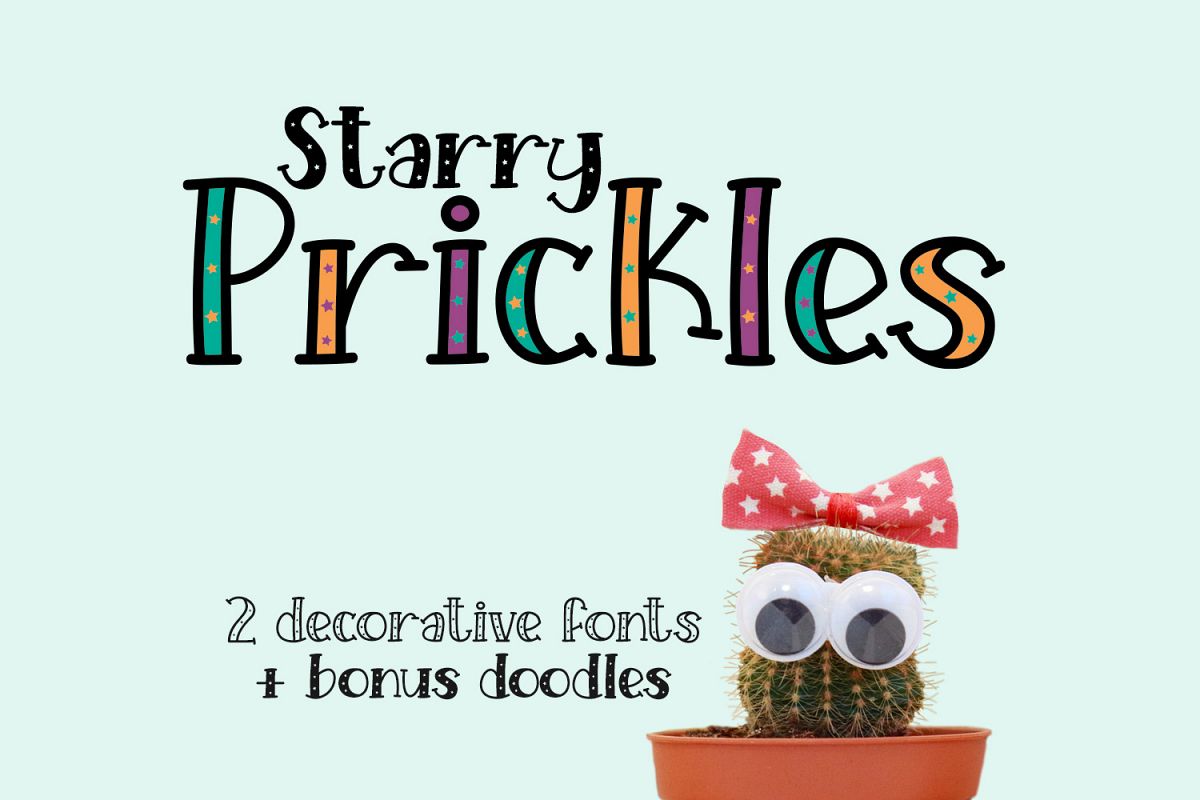
Starry Prickles
Starry Prickles - a fun handwritten serif font with decorative stars - both hollow and filled!
Includes a bonus doodle font with 52 doodles for every occasion.